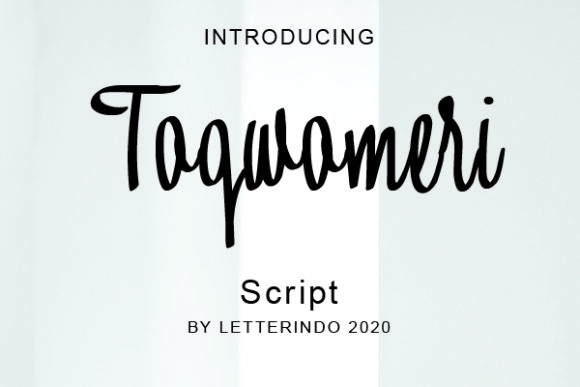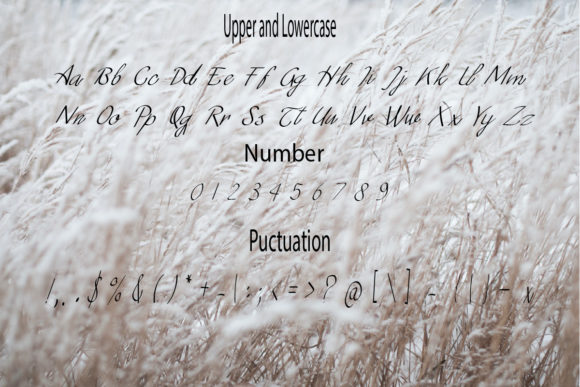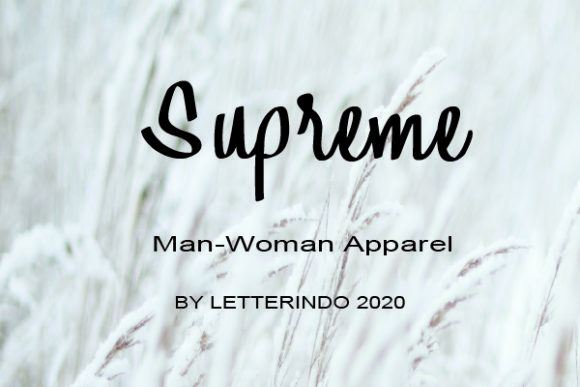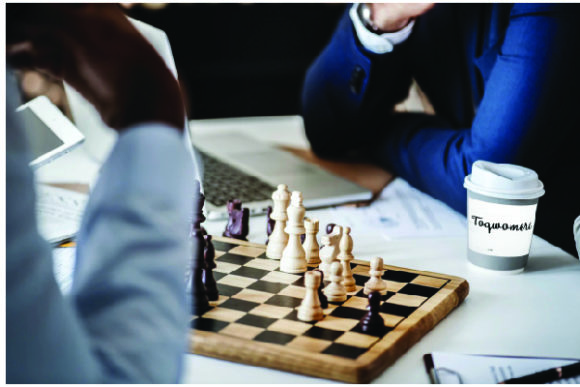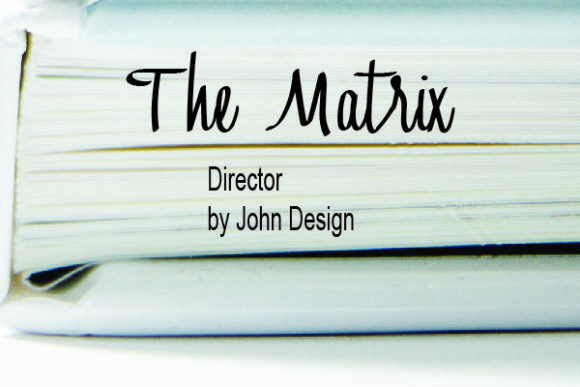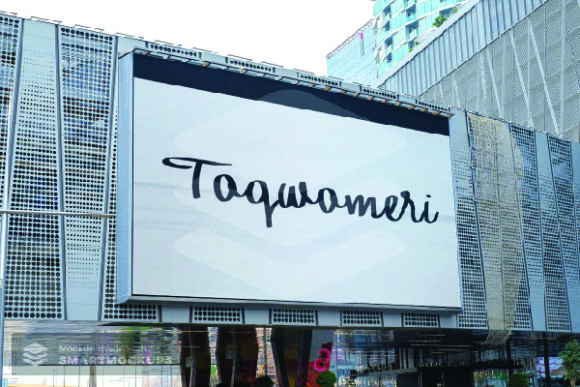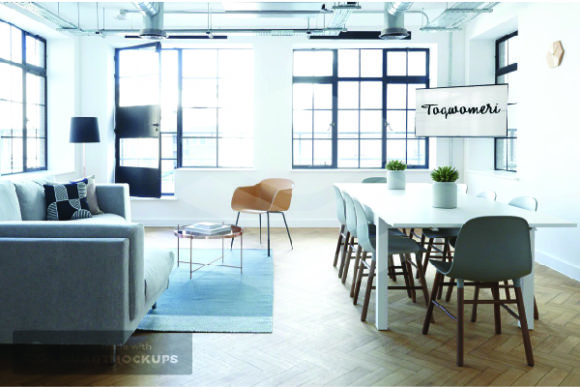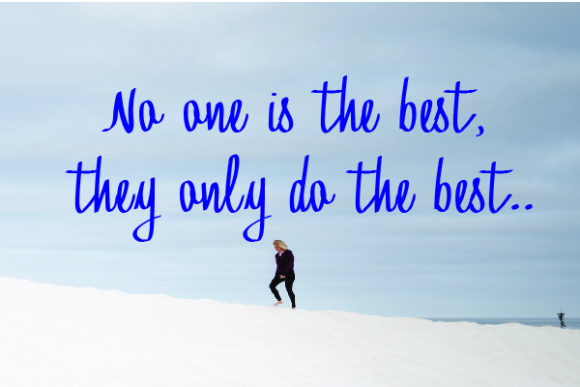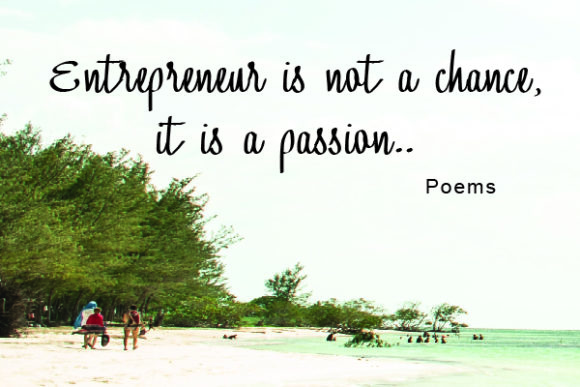
Toqwomeri Font
About Toqwomeri Font
Toqwomeri is a fresh and authentic handwritten font. Whether you’re looking for fonts for Instagram or calligraphy scripts for DIY projects,
Toqwomeri will turn any creative idea into a true piece of art!